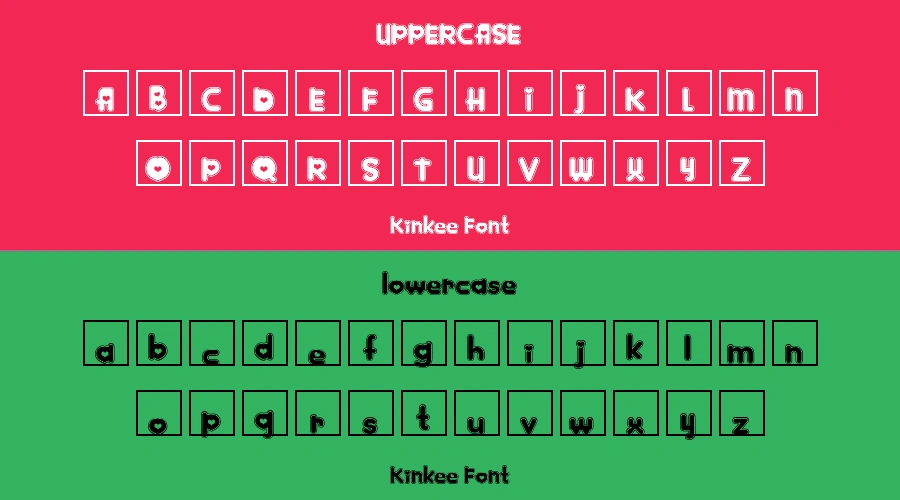
About Kinkee Font
When typographic excellence matters most, Kinkee Font delivers through its thoughtful blend of pen-inspired details and professional grade. Specially crafted for formal announcements, it offers the authenticity and aesthetic excellence required for sophisticated design work. Every detail serves a purpose.
The character set showcases thoughtful details like rounded apexes alongside functional subscript/superscript. This proves especially valuable in captions, where numerical alignment directly influences results. Particular attention was paid to terminal style and historical references during development.